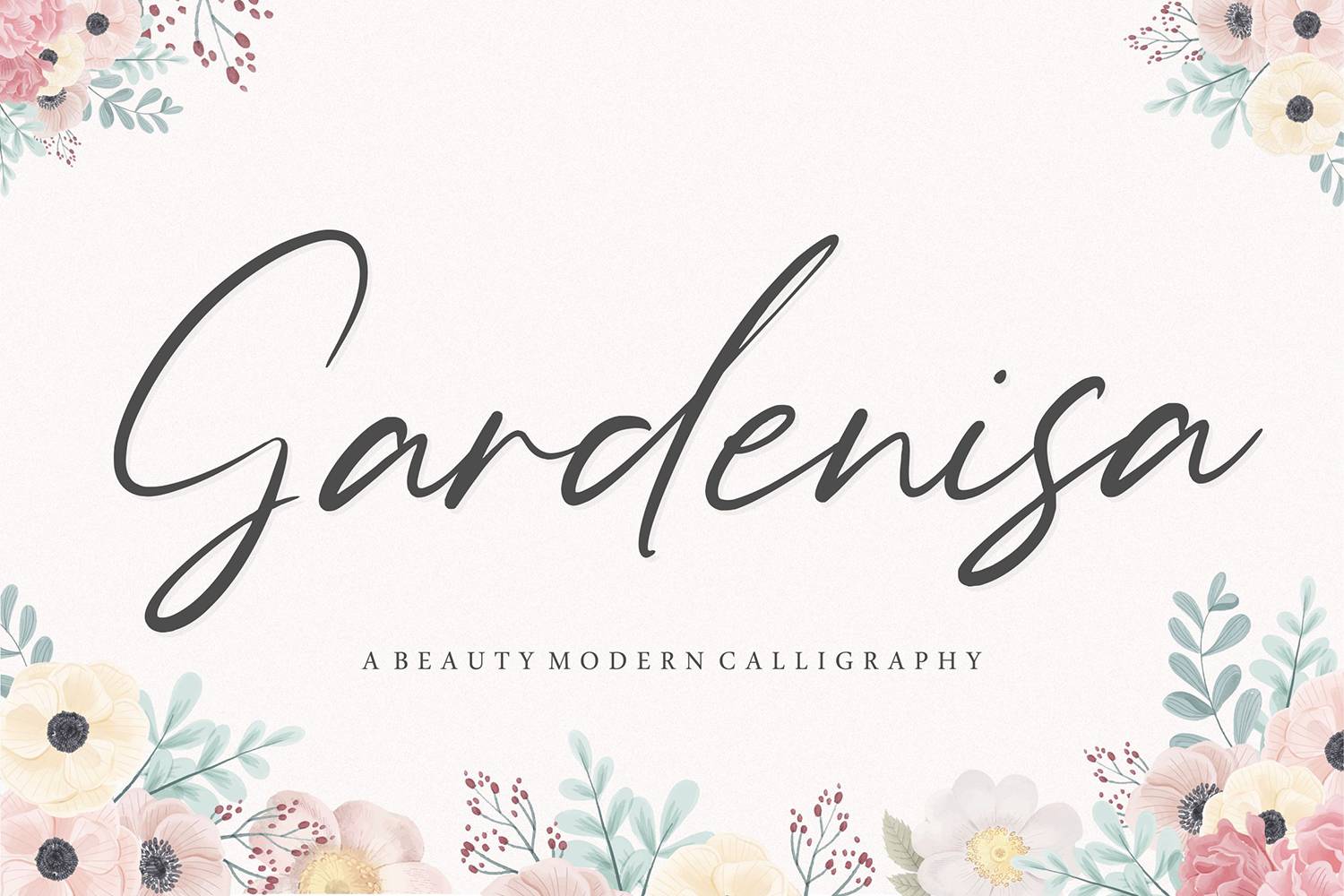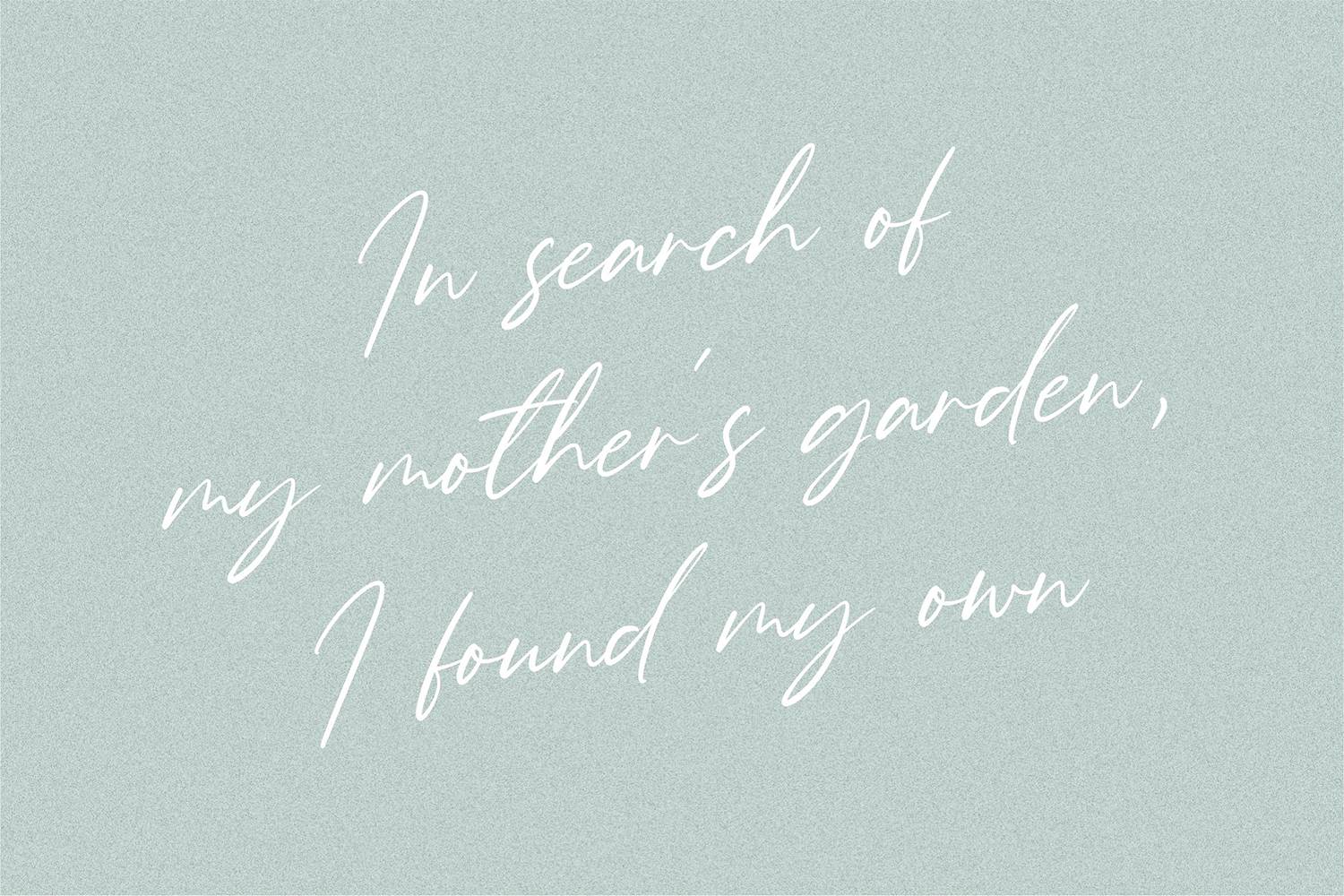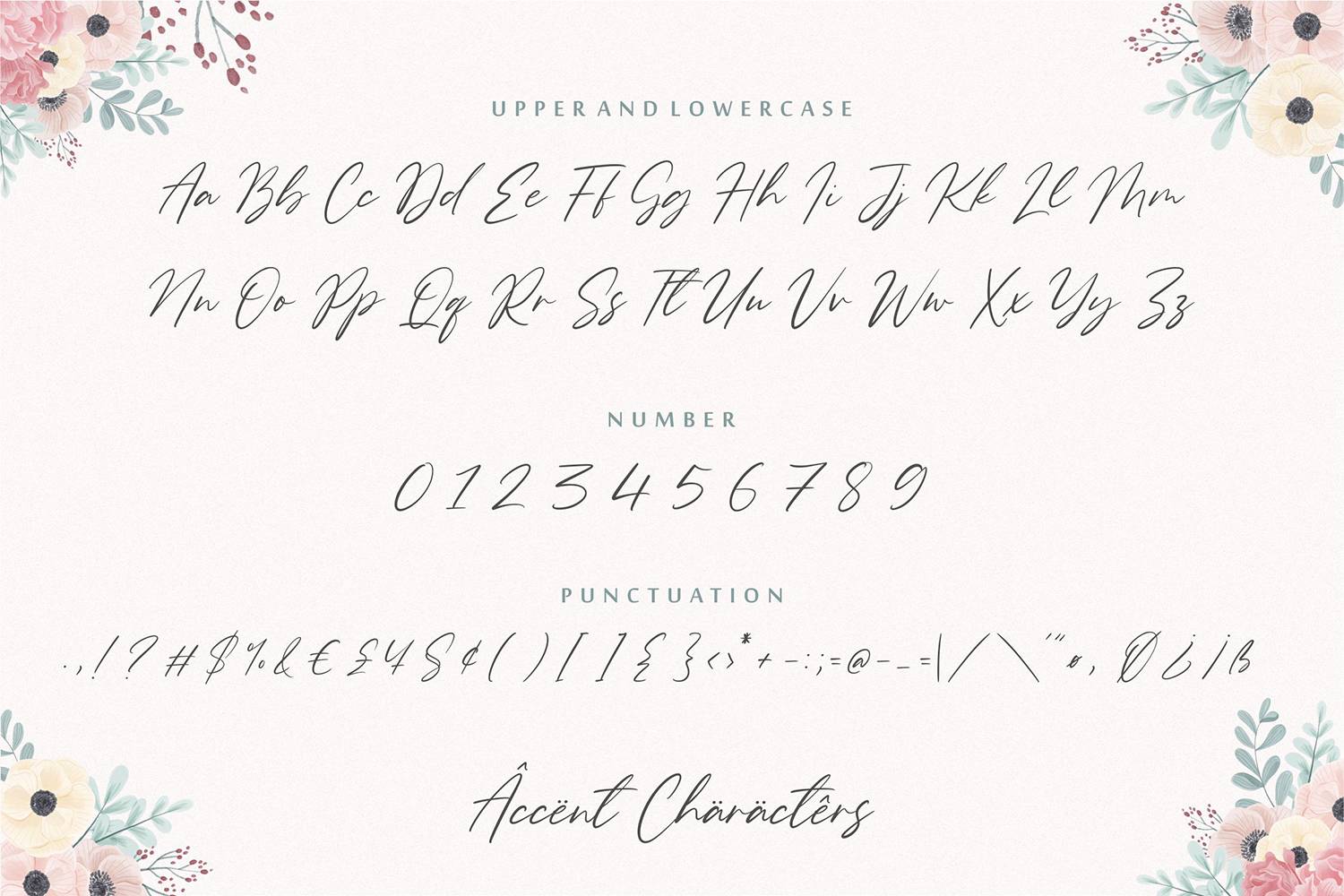
Gardenisa Font
Gardenisa Font is perfect for product packaging, branding project, magazine, social media, weddings, or just used to express words above the background. This free typeface was designed by talented Balpirick Studio. If you like it don’t forget to check out the full version.